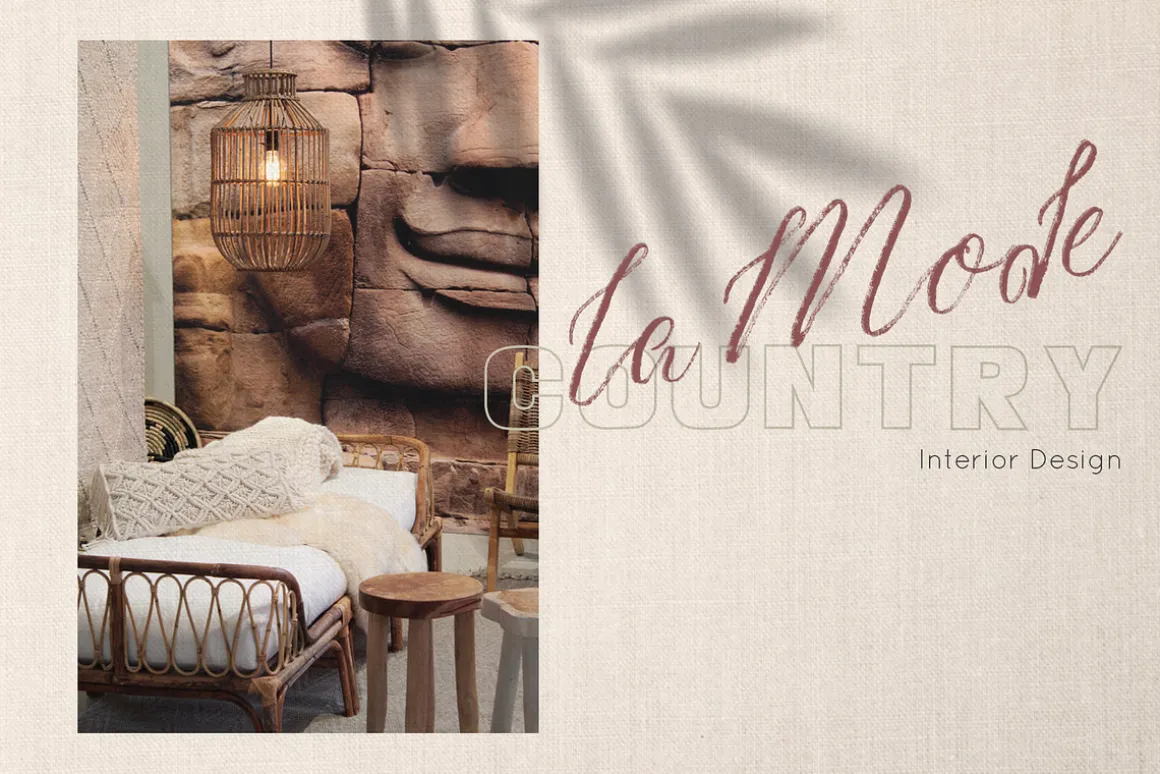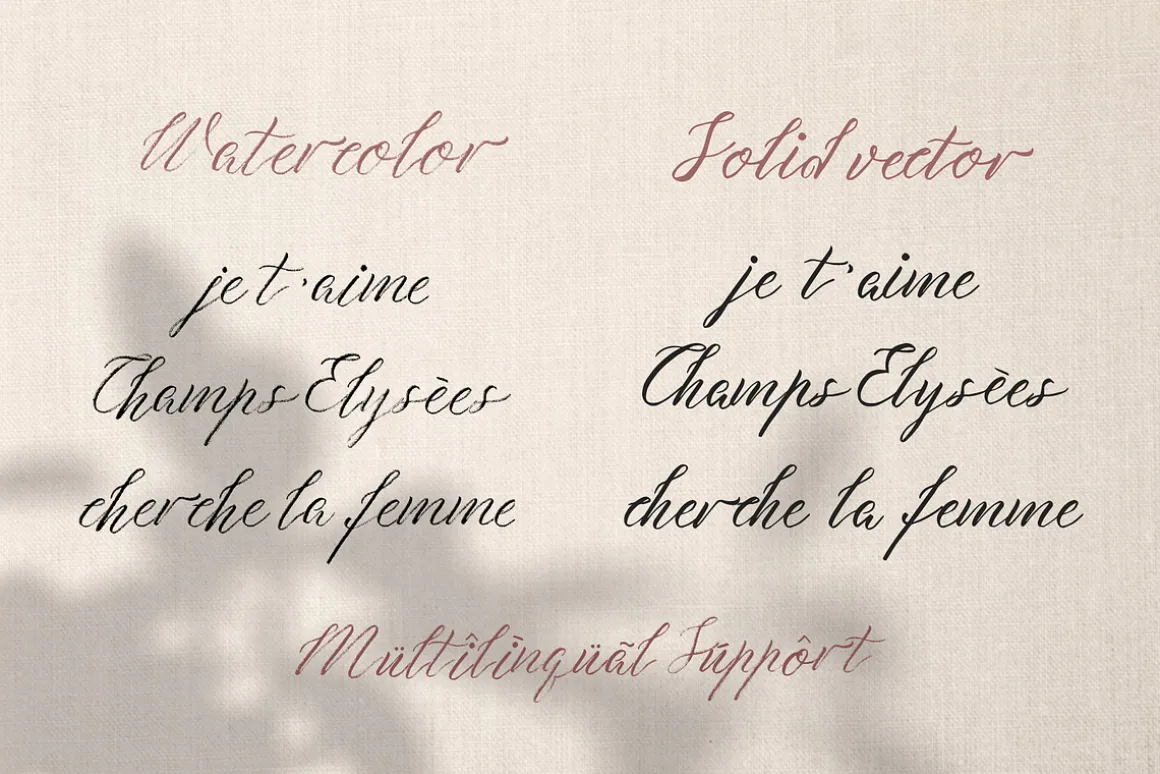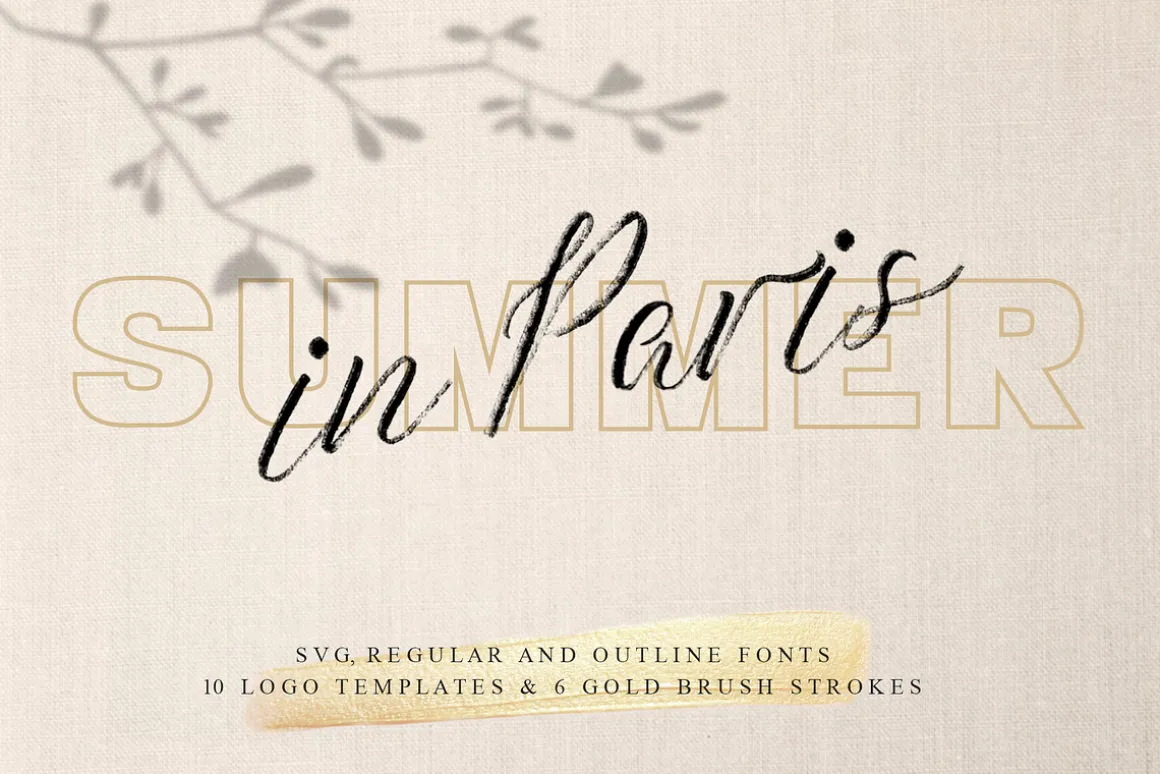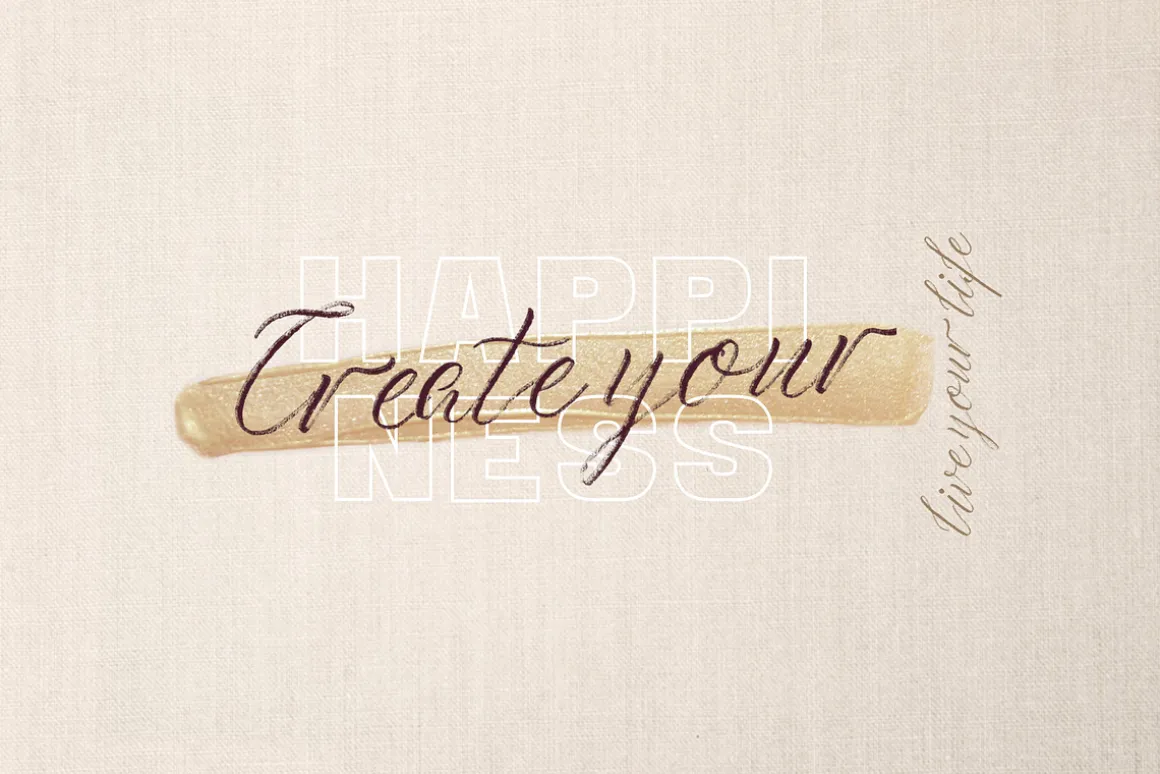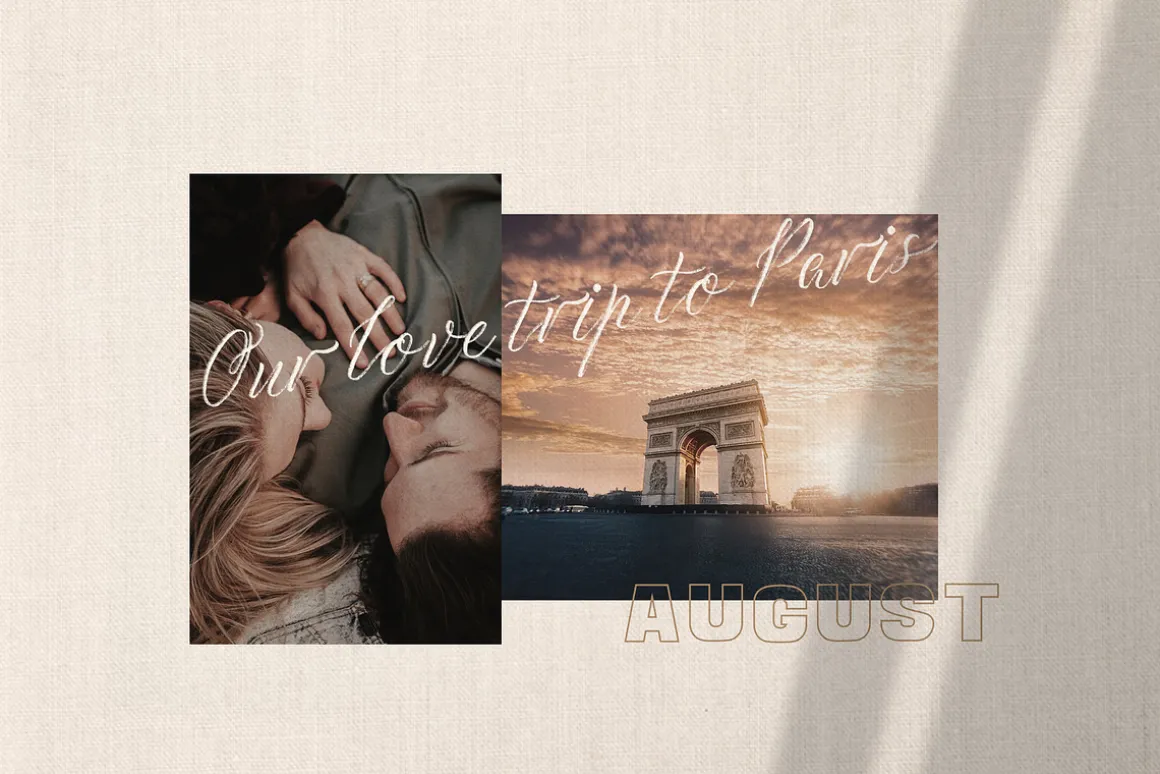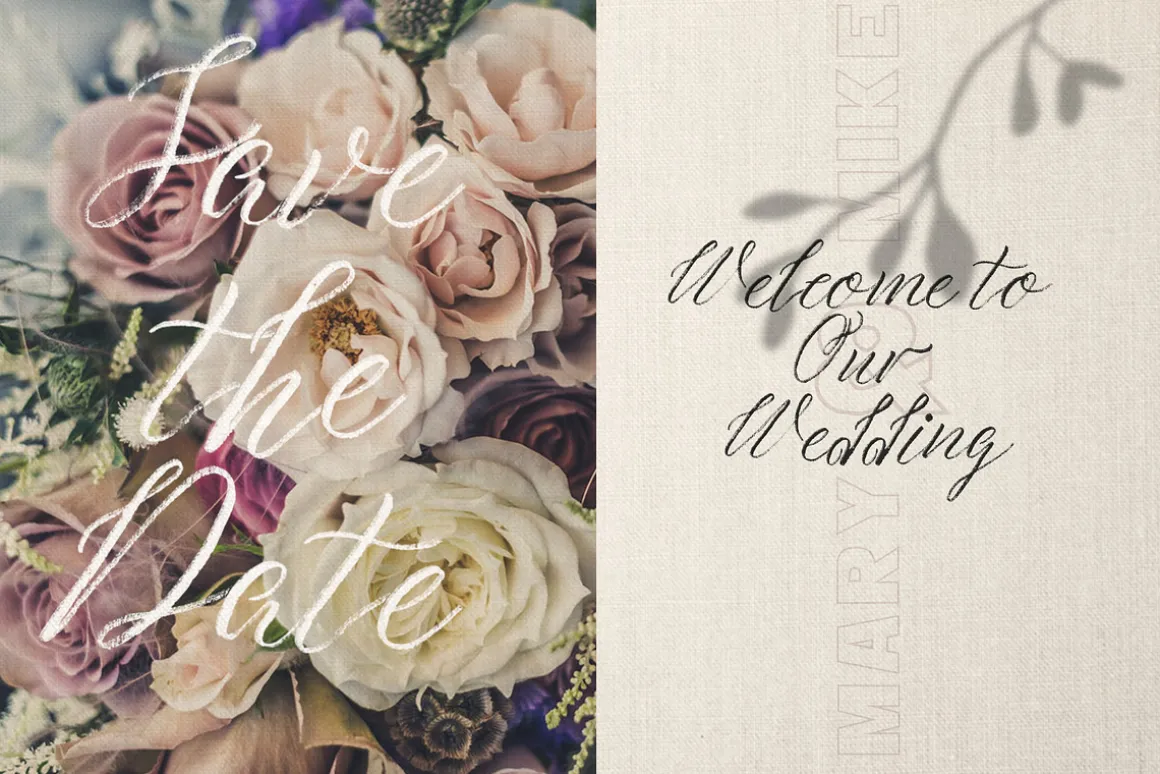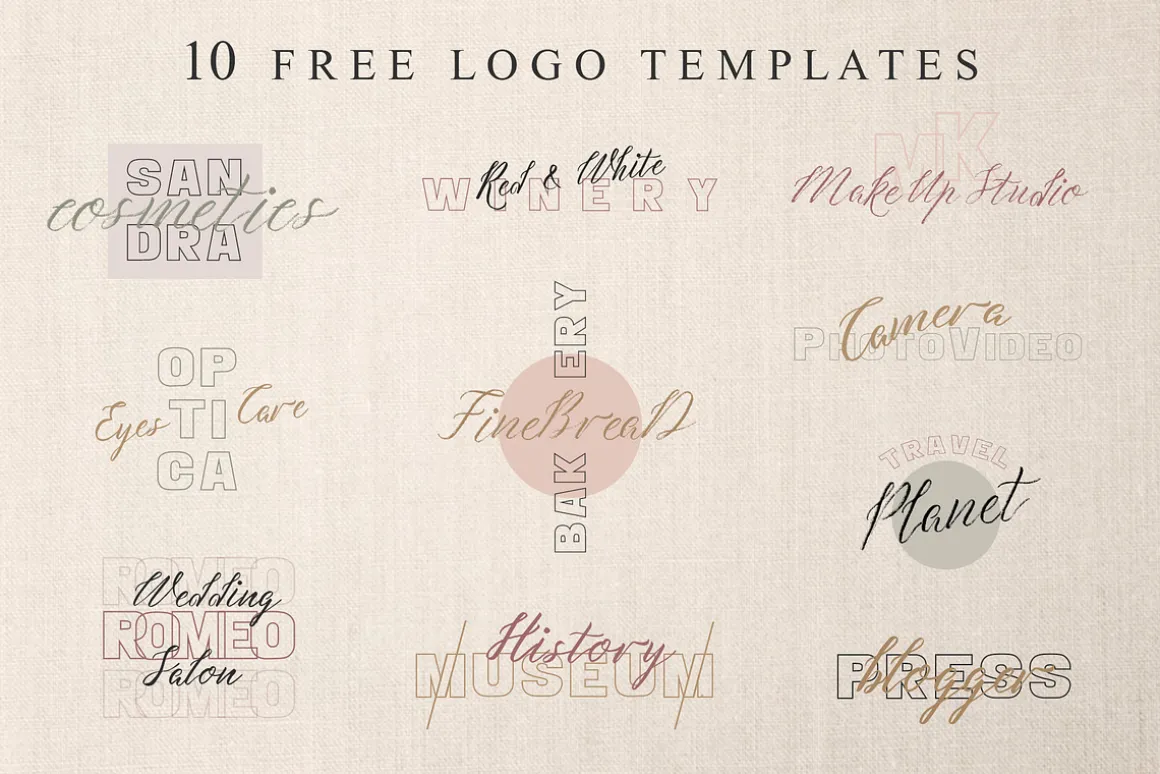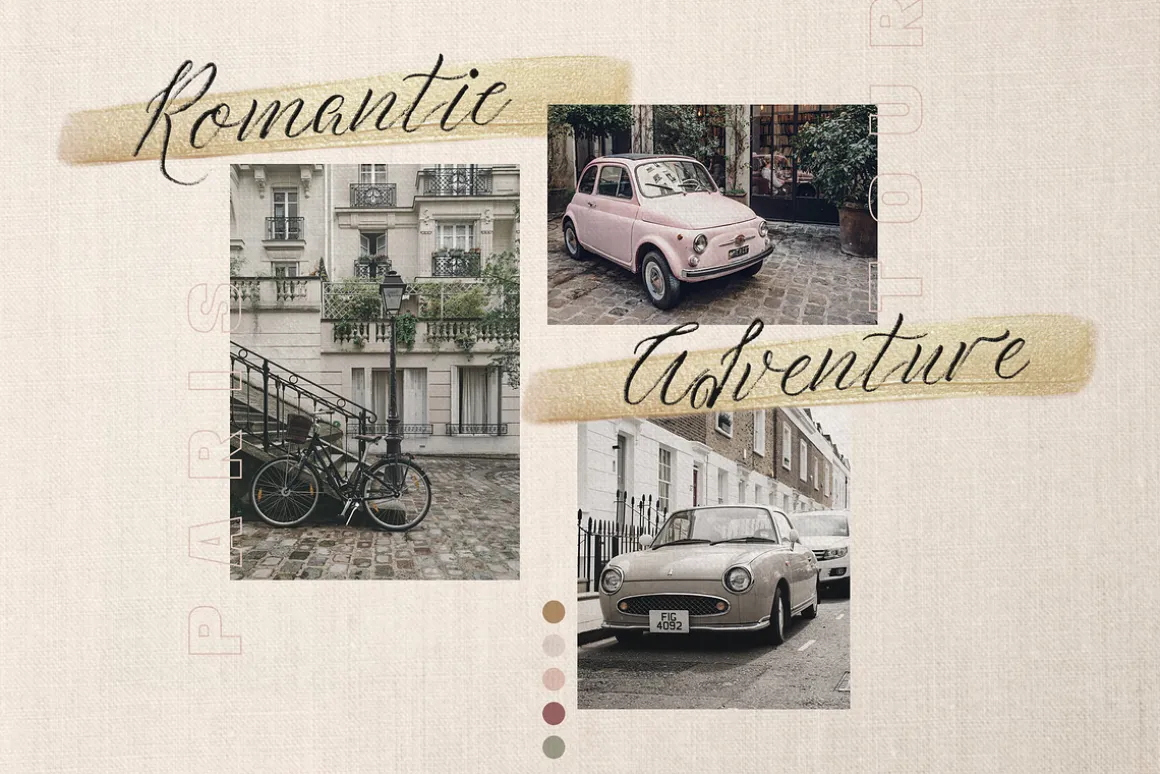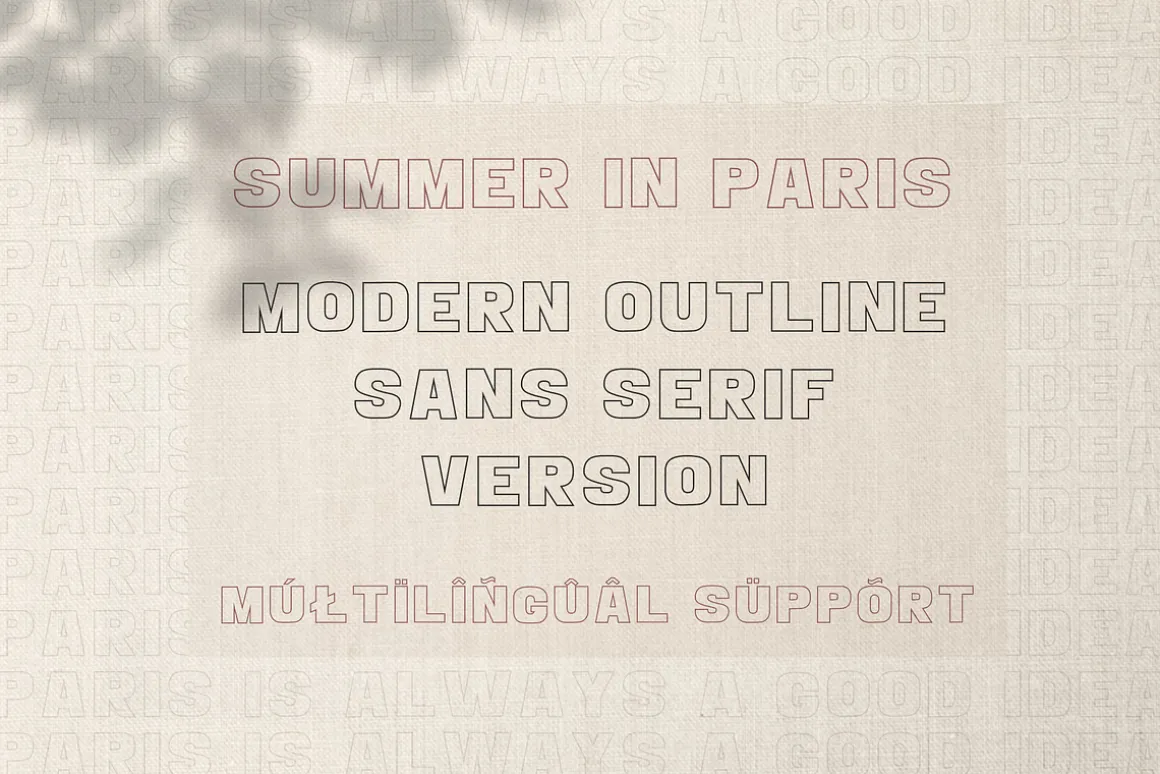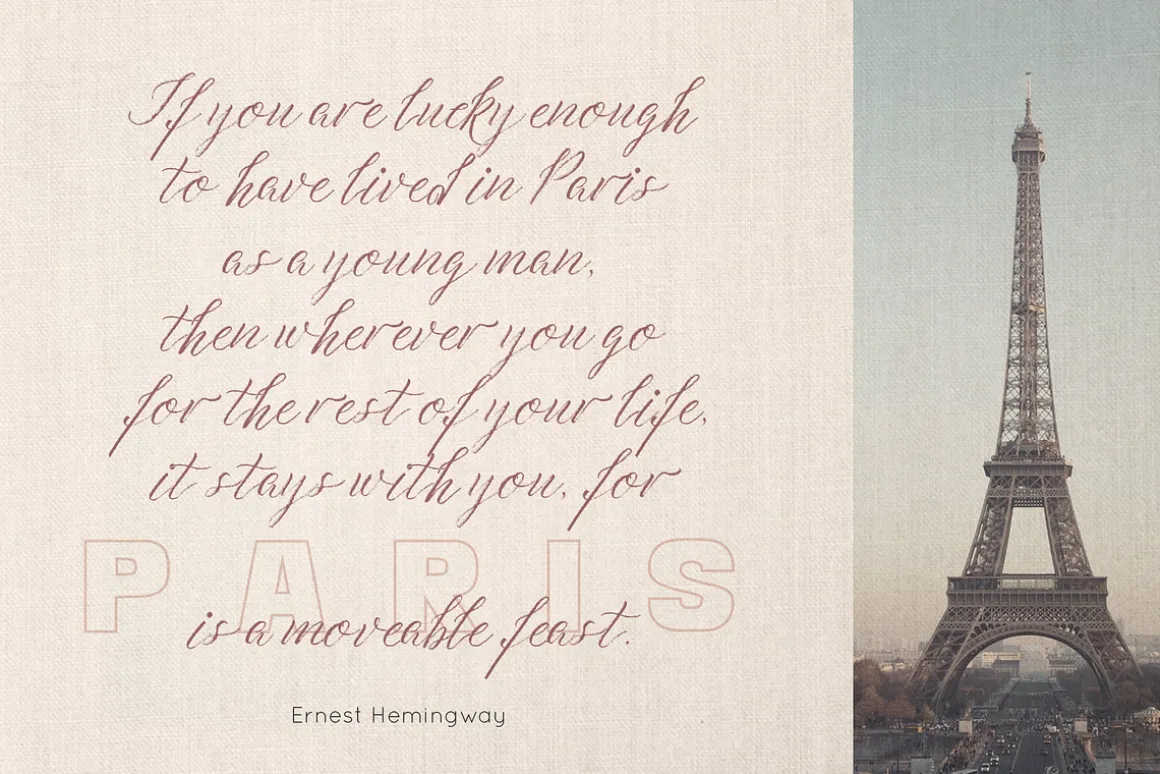
Oh my darling! Wholeheartedly i did it! Summer is near and let me introduce Summer in Paris font combination impressed with this long awaited warm season!
Stunning SVG (pencil textured or watercolor) hand lettering design (or its solid vector version) paired with bold sans serif outline font is available now, looks classy and trully professional at the same time. I tried to do all my best creating new font combination and adding something new. So i included easy editable 10 free LOGO TEMPLATES and 6 GOLD BRUSH STROKES for your future successful projects.
Summer in Paris consists of SVG, solid vector and outline sans fonts combination. Also 10 free logo templates included.
Summer in Paris is really new and trendy, universal and modern! The owner of endless possibilities! It is perfect for multiple contexts. Works great in mood boards, posters, logos, headlines, packaging, advertising, branding and so much more. These fonts will easily help you to create the best romantic, urban or rustic, elegant or dynamic designs.
Summer in Paris SVG font has a real hand-painted wet brush look, ultra-textured and transparent letters with high-definition brush textures built in to the font as a transparency. This font will help you to make your projects trully hand-painted realistic and natural.
Summer in Paris has traditional regular vector format.
Both versions have uppercase and lowercase letters, numbers & basic punctuation, multiligual support (French, German, Italian, Norwegian, Portuguese, Spanish, Swedish, Swiss German).Please Note : Summer in Paris SVG fontrequires Photoshop CC 2017 or Illustrator CC 2018 (or newer) to use.